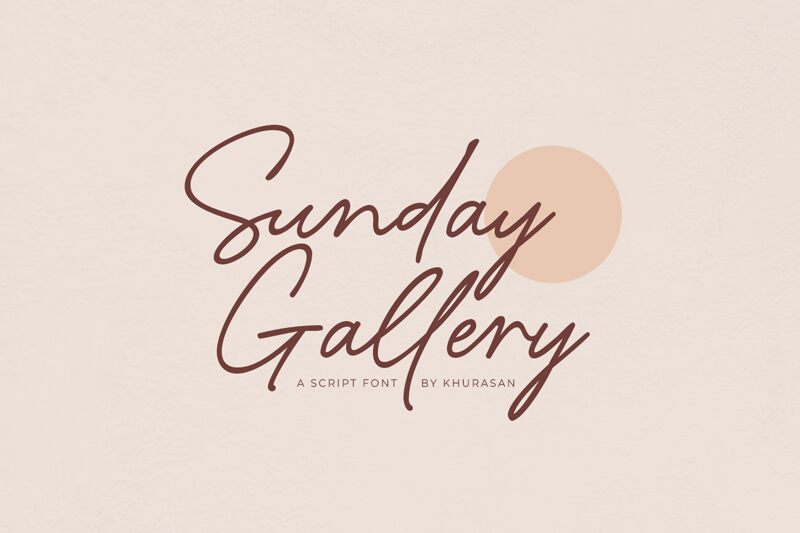
Sunday Gallery
Sunday Gallery, the latest handwritten font masterpiece by Khurasan, is a stunning addition to any creative project. Its extra-light weight creates a delicate and refined aesthetic that's perfect for elegant invitations and dreamy designs. The playful curves and organic strokes of this typeface add a touch of whimsy to branding materials, product packaging, and blog graphics. Sunday Gallery is also an ideal choice for wedding stationery, social media posts, or anything that requires a personal touch. With its unique charm and versatility, Sunday Gallery is sure to elevate any design project with its handcrafted elegance.